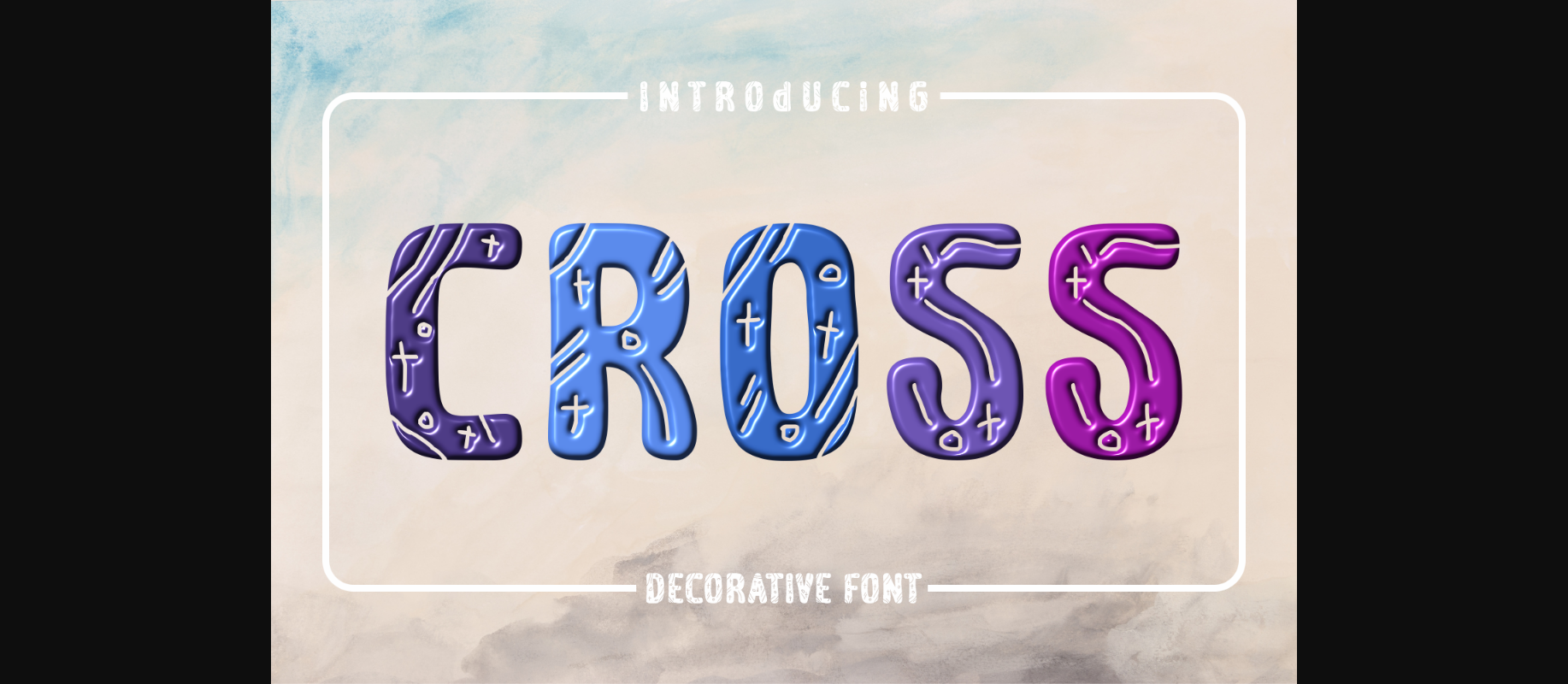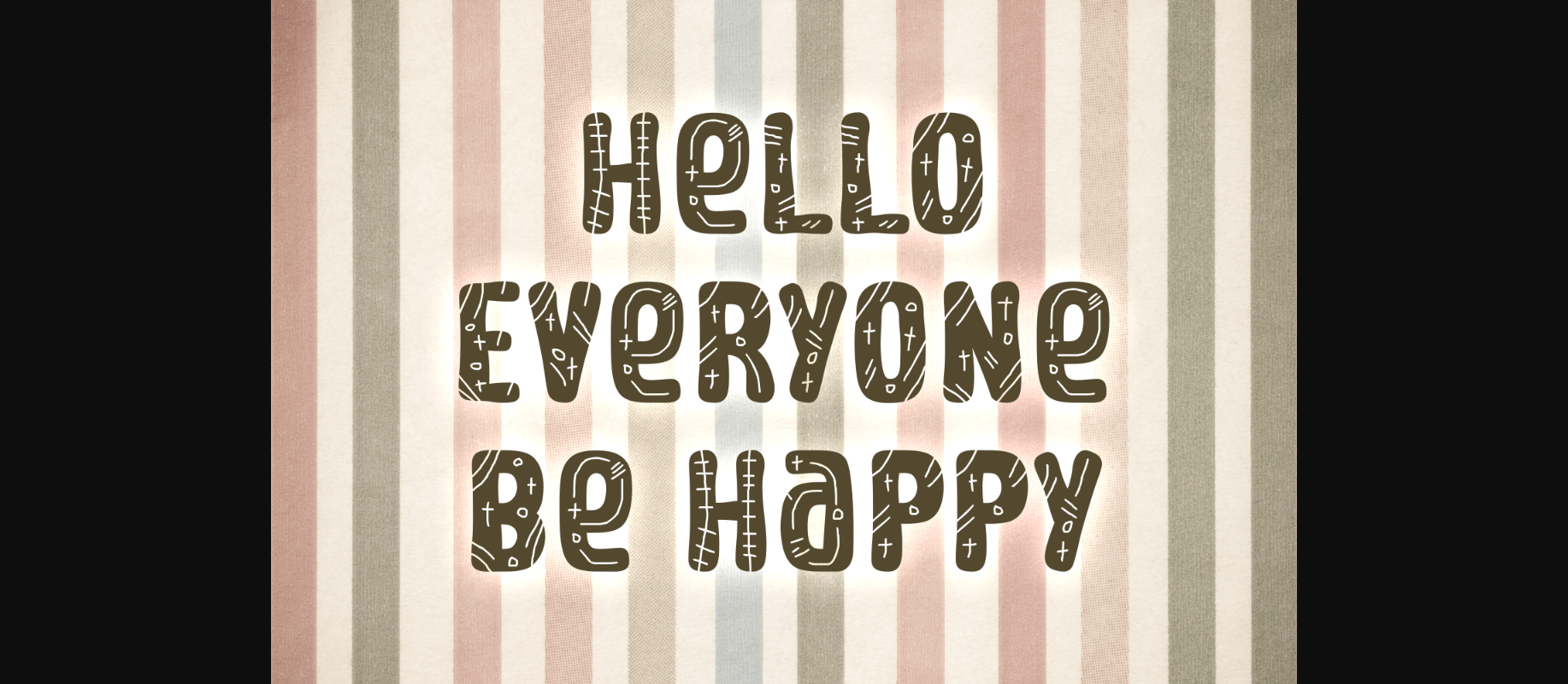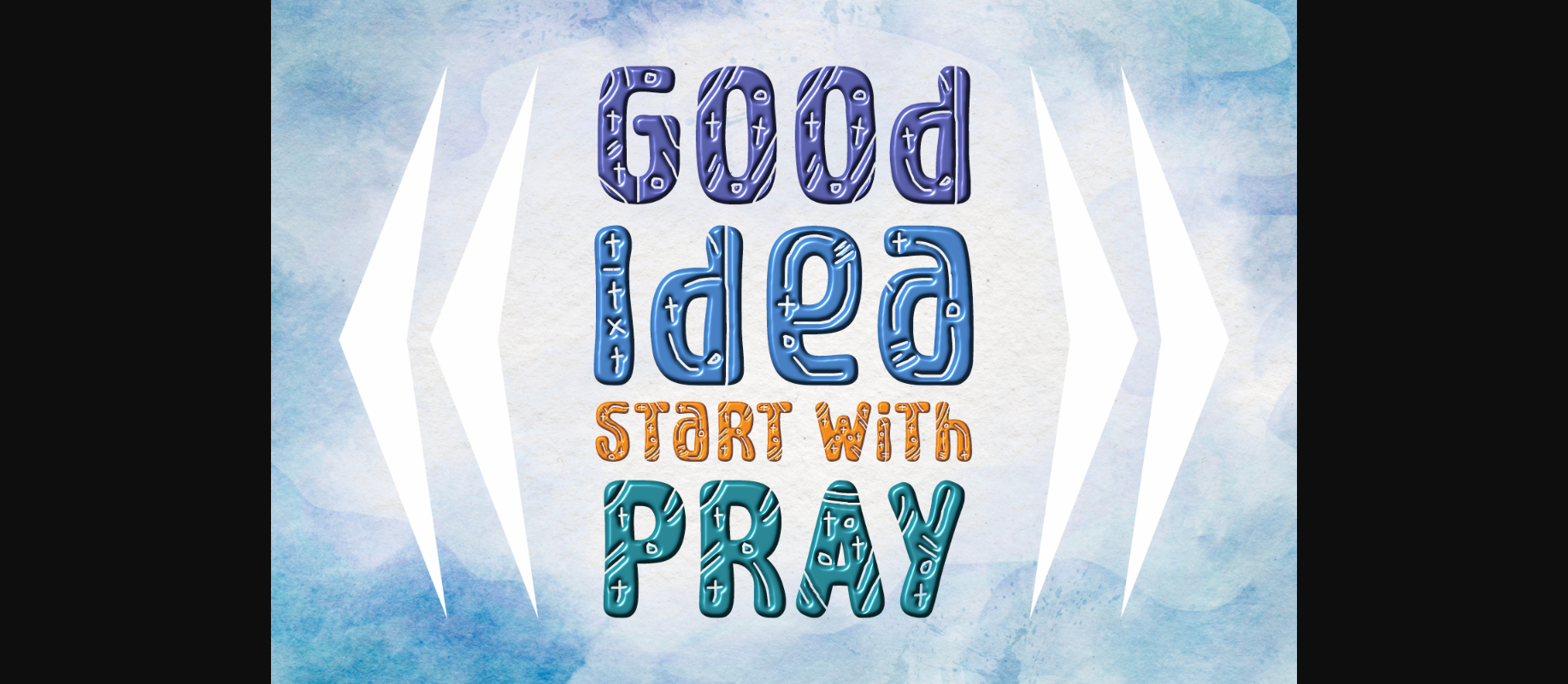
HomeDecorative FontsCross Font Decorative Fonts Cross Font FacebookXPinterestWhatsApp 1 of 5 ... Cross Font Poster 2... Cross Font Poster 3... Cross Font Poster 4... Cross Font Poster 5... About Cross Font Cross is a cute and quirky decorative font with religious elements. It will add an incredibly joyful touch to your designs. Add this beautiful display font to each of your creative ideas and notice how it makes them stand out! DOWNLOAD NOW People also explored Give a Green Hoot Font Sweet Dreams Font Baby Shower Font Star Circle Font Rother Font The Farmhouse Font Shetid Font Coffee Font Daniela Font 433 0 TagsCrossCross Font Previous articleHave to Love FontNext articleLove Love Font LEAVE A REPLY Cancel reply Comment: Please enter your comment! Name:* Please enter your name here Email:* You have entered an incorrect email address! Please enter your email address here Website: Save my name, email, and website in this browser for the next time I comment. Personal Use Free GoodFay Personal Use Free Read more about this font Omira Personal Use Free Read more about this font Kredit Personal Use Free Read more about this font Nickainley Personal Use Free Read more about this font BLOG Using Fonts in Digital Marketing: Tips to Strengthen Your Brand Identity In the realm of digital marketing, every visual element plays a crucial role in shaping a brand's identity, and fonts are no exception. The... Top 7 Google Fonts Alternatives for Faster and Privacy-Friendly Web Design (2025) To increase your work productivity, choose the most readable fonts. Best Fonts for YouTube Videos: Make Your Thumbnails Stand Out